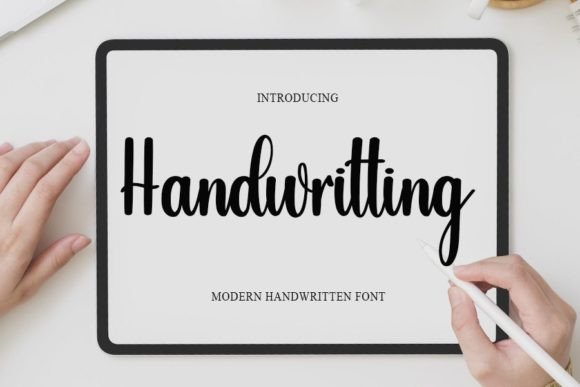
Step into the world of Handwritting Font, a captivating script font family that will transform your digital creations into masterpieces. Created by the ingenious minds at PiPi Creative, Handwritting is the perfect font for expressing your unique personality and style.
Handwritting's delicate strokes and elegant curves mimic the beauty of authentic handwriting, infusing your designs with a touch of sophistication and charm. Each letter is meticulously crafted to exude a timeless appeal that will captivate your audience.
With Handwritting, you'll effortlessly create stunning designs that resonate with your audience. Whether you're working on a design portfolio, crafting heartfelt invitations, or creating eye-catching social media posts, Handwritting will elevate your projects to new heights.
Let your imagination soar as you explore the endless possibilities of Handwritting. Its versatility extends far beyond traditional design projects. Use it to craft personalized logos, add a touch of elegance to your website, or transform your online presence with captivating typography.
Dive into the world of Handwritting and unleash your creativity. Experience the joy of creating designs that speak volumes, leaving a lasting impression on all who encounter them.